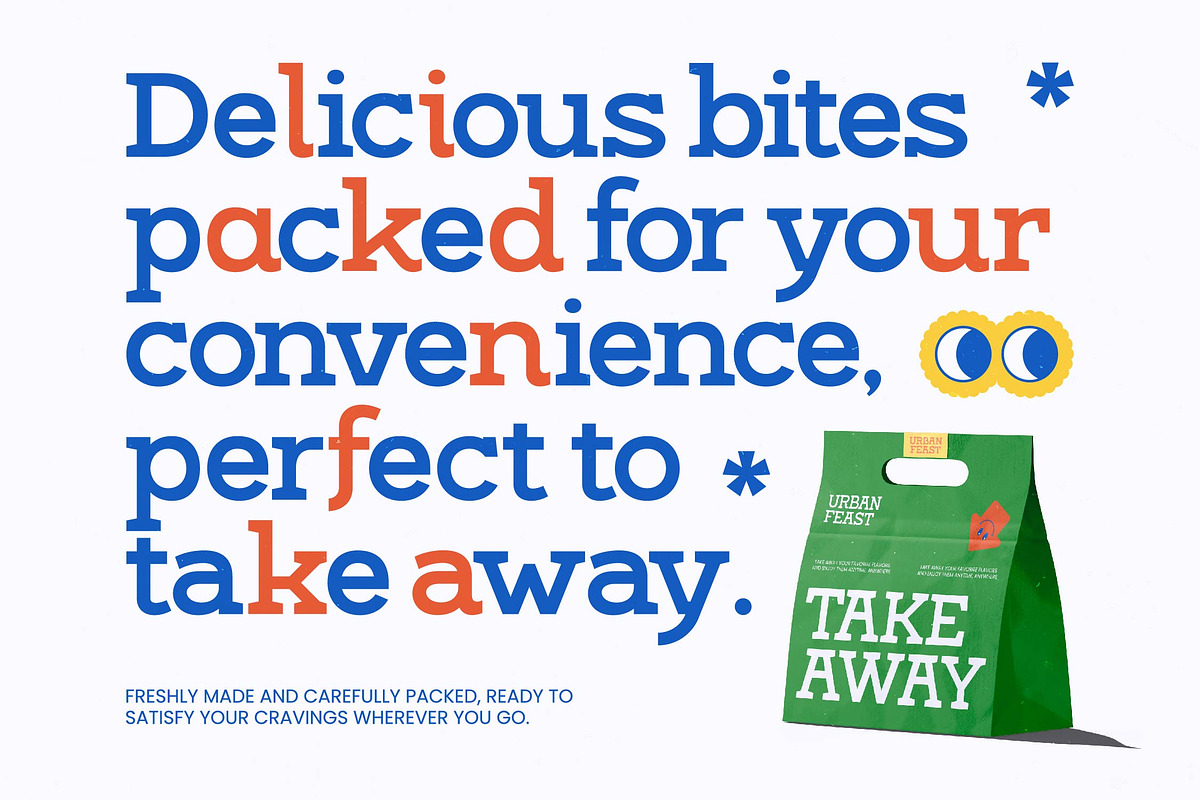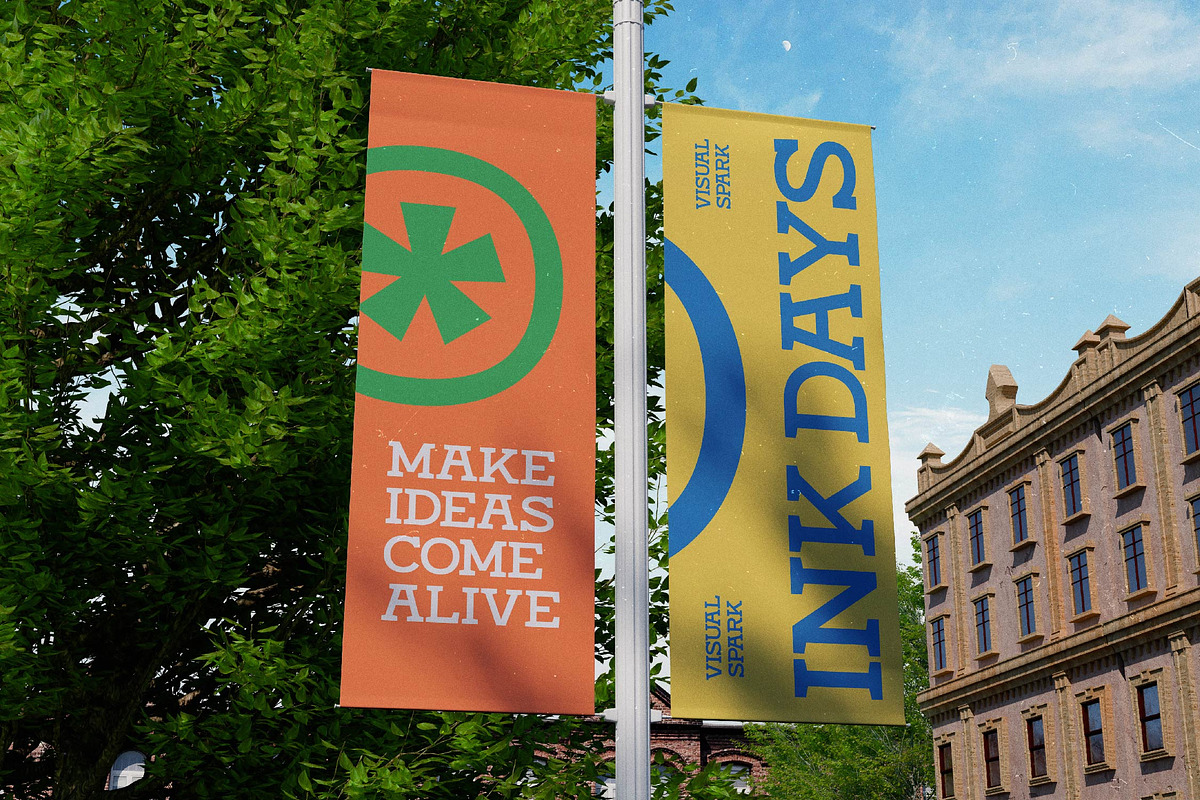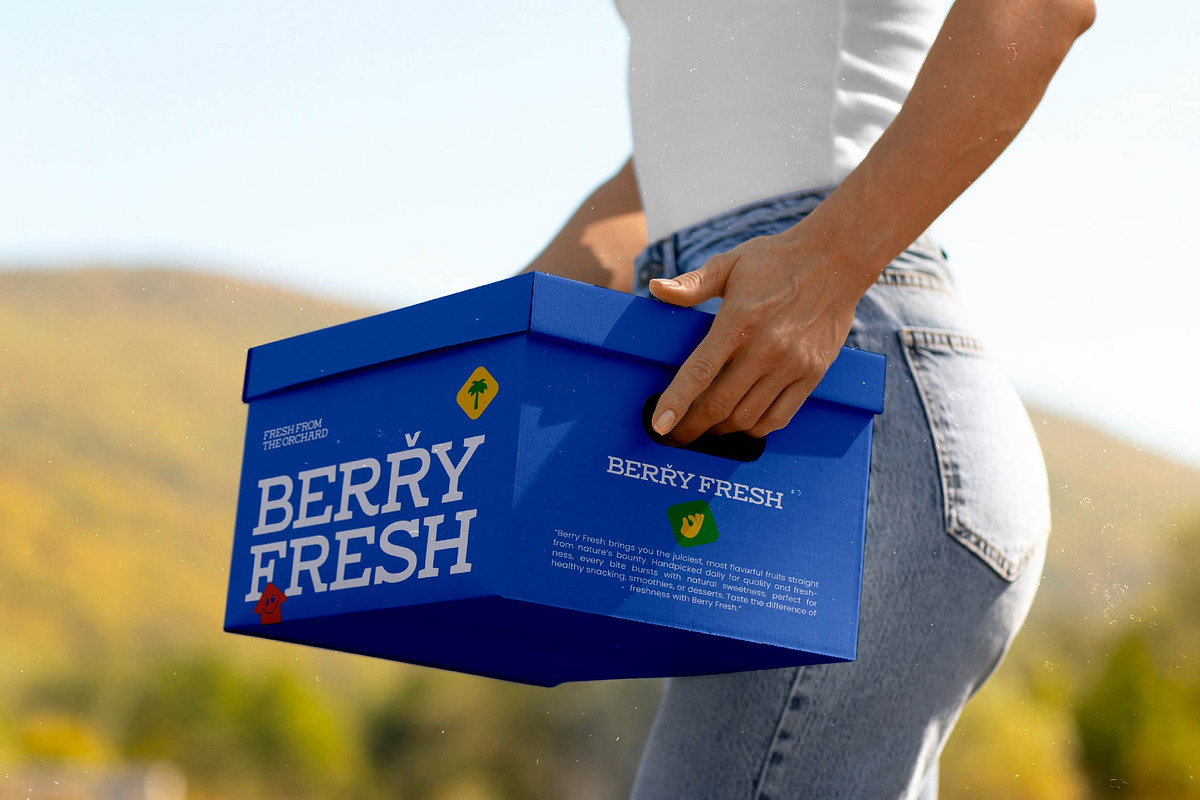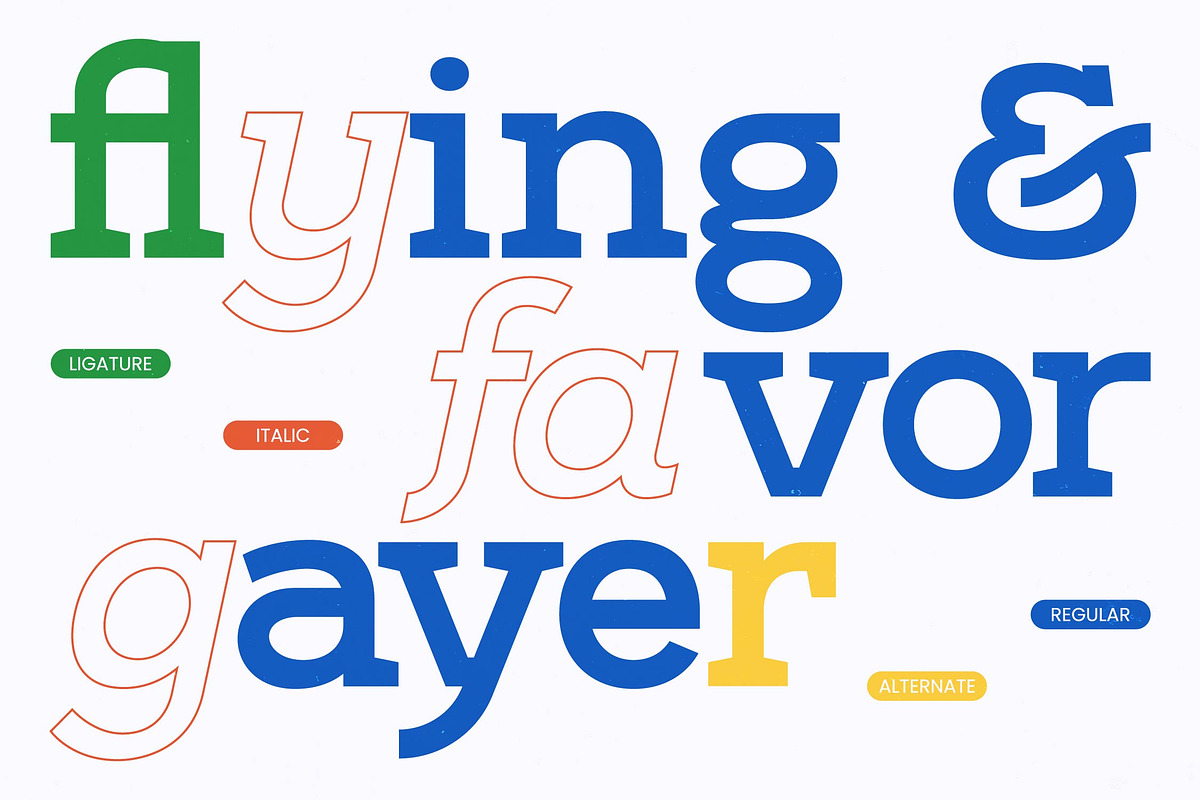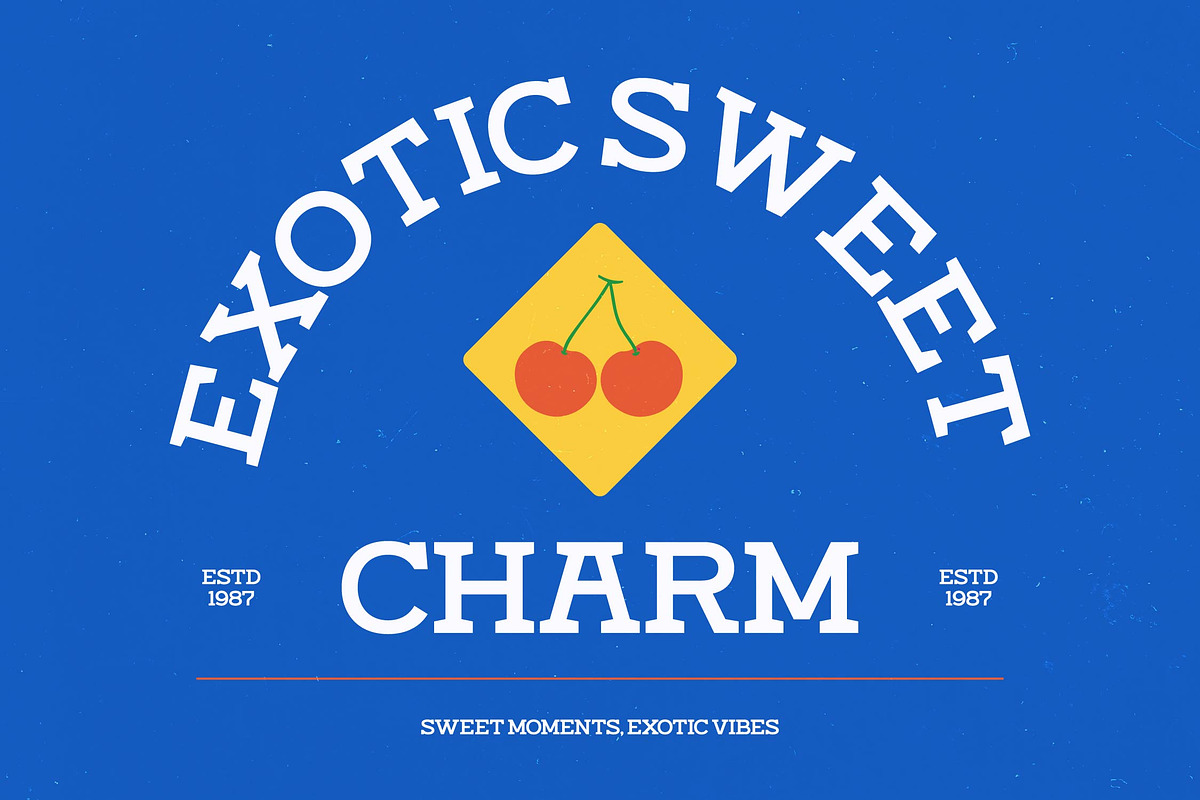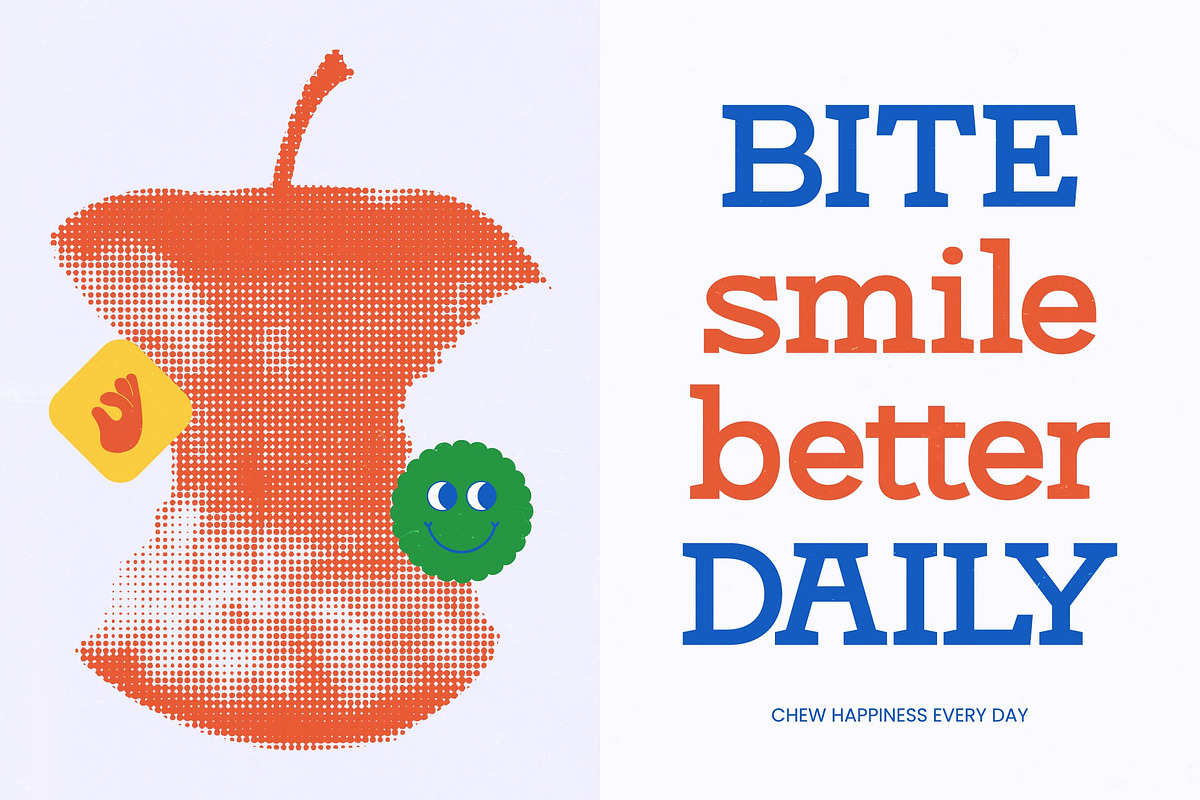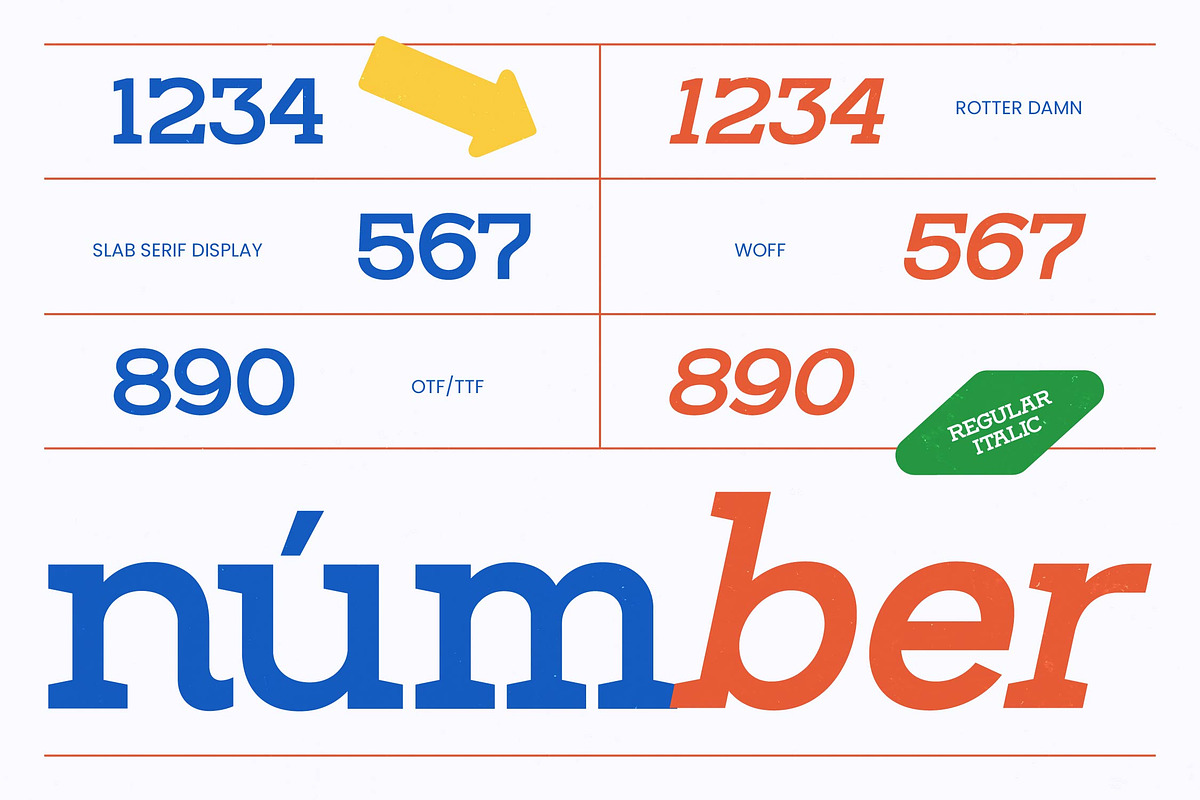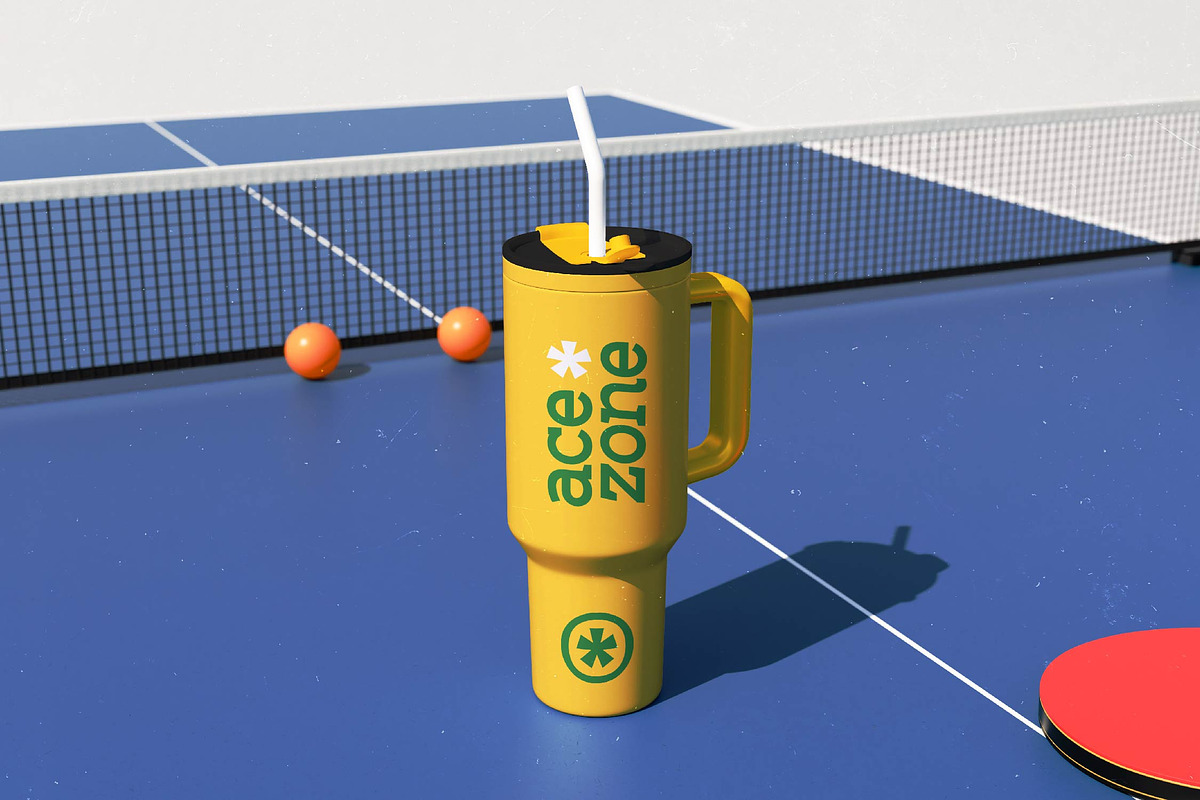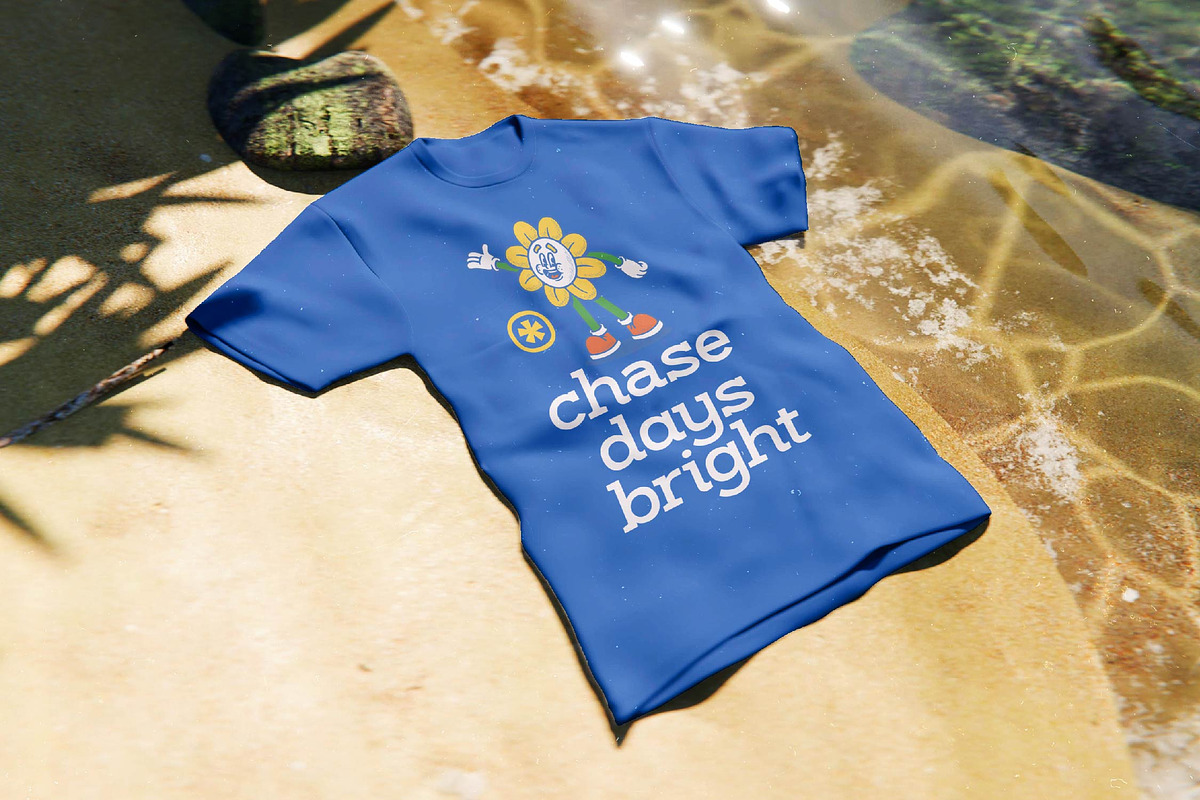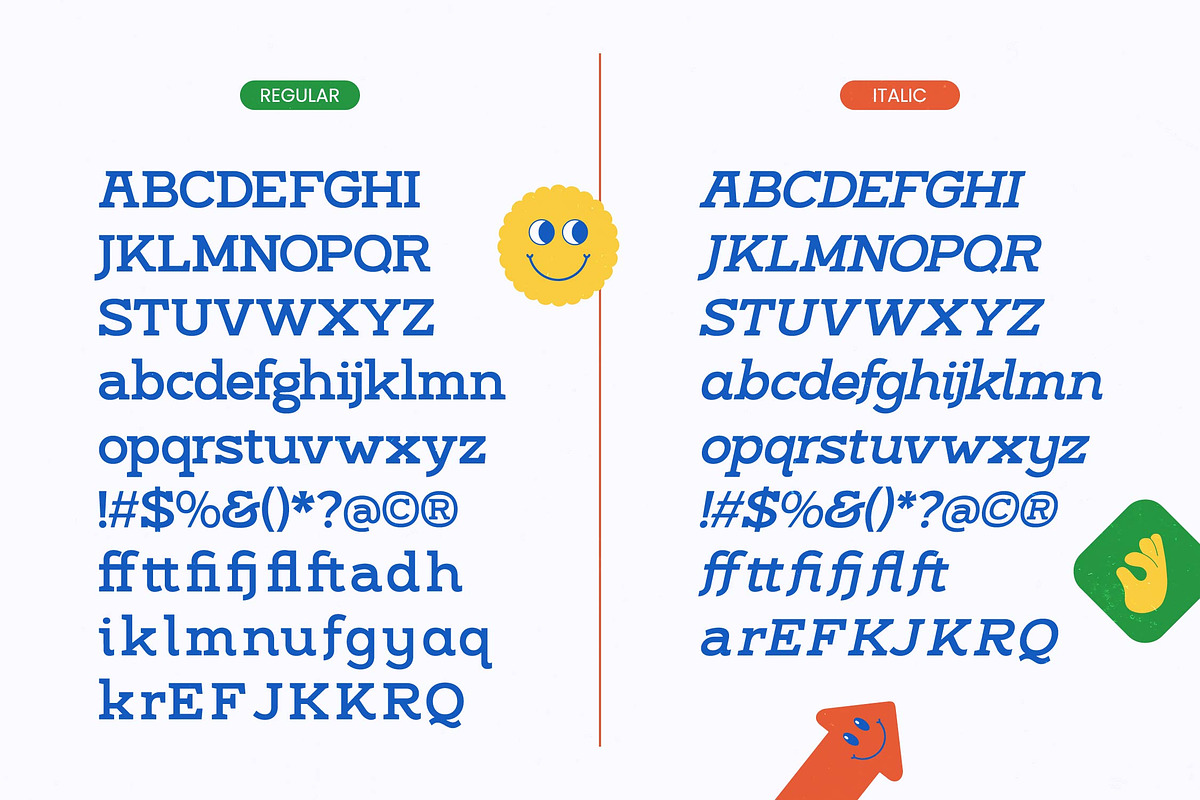
Rotter Damn Slab Serif Display
Rotter Damn – Slab Serif Display , Elevate your design projects with the commanding presence of Rotter Damn – Slab Serif Display, a typeface engineered for maximum visual impact. This slab serif display font blends structural integrity with a modern aesthetic, offering a perfect balance between vintage charm and contemporary precision. Its bold strokes and sharp terminals ensure your message is delivered with unmistakable clarity and sophisticated style.
Precision meets versatility in this exceptional typeface, making it the definitive choice for luxury branding, bold packaging, and high-end editorial design. Rotter Damn – Slab Serif Display is perfect for logo design, large-scale posters, and dynamic advertising campaigns where a strong visual identity is paramount. Its distinct personality allows it to anchor any layout, providing a premium look and feel that resonates with discerning audiences.
Experience global reach without compromising on design consistency through integrated technical features. With its extensive multilingual support, Rotter Damn – Slab Serif Display adapts seamlessly across global markets, making it incredibly versatile for international projects. Furthermore, the inclusion of 06 unique ligatures and 23 character alternates empowers designers to create customized typographic layouts that feel handcrafted and exclusive.
Transform your creative vision into a tangible visual statement with this professional-grade font. Whether utilizing the Regular or Italic weights, Rotter Damn – Slab Serif Display provides the flexibility needed for modern web design and print media alike. Secure this essential design tool to ensure your portfolio stands out with a timeless typographic foundation that captures the essence of bold innovation.